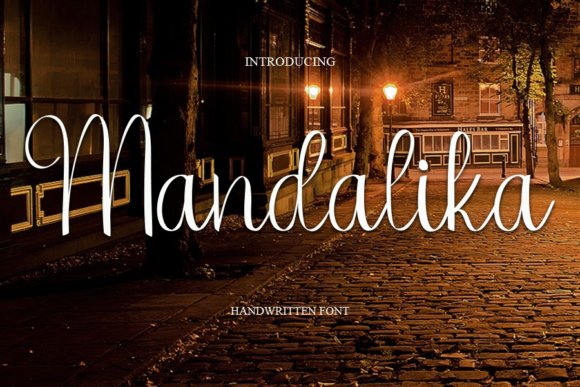
Welcome to the marvelous world of Mandalika Font, a captivating script font that dances across your designs with an enchanting grace. This delightful handwritten font possesses an allure that transforms ordinary words into captivating art. With its sweeping curves and playful flourishes, Mandalika Font adds a joyful and romantic touch to every project, leaving an indelible mark that echoes timeless elegance.
As a script font, Mandalika Font dances across your designs with an energy that is both lighthearted and sophisticated. It brings a touch of whimsy and playfulness to logos and branding concepts, making them stand out from the crowd. Imagine your logo, rendered in Mandalika Font, dancing gracefully across business cards, website headers, and product packaging, capturing attention and leaving a memorable impression.
For wedding invitations and greeting cards, Mandalika Font is a dream come true. Its delicate swirls and flowing lines evoke a sense of romance and joy, perfectly encapsulating the emotions of your special day or heartfelt message. The font's inherent elegance adds a timeless charm to your wedding stationery, making it a cherished keepsake that will be treasured for years to come.
Fashion and lookbook designs take on a new life when adorned with Mandalika Font. Its flowing curves and stylish flourishes bring a touch of sophistication and allure to your designs, making them captivating and visually appealing. Imagine your fashion catalog or lookbook, infused with the essence of Mandalika Font, captivating readers with its timeless beauty and inspiring them to embrace their own unique style.
But Mandalika Font is not just limited to these specific applications. Its versatility shines in marketing promotions, social media graphics, and any other design project where you seek to make a statement. Whether you're crafting a captivating flyer, designing a stunning poster, or creating eye-catching social media content, Mandalika Font is your perfect companion, adding a touch of class and creativity that resonates with your audience.
So, if you seek a font that captivates, inspires, and leaves a lasting impression, look no further than Mandalika Font. Its enchanting beauty and versatility make it a must-have for designers of all skill levels, allowing you to create designs that speak volumes and leave a lasting legacy of elegance and charm. Embrace the magic of Mandalika Font today and embark on a creative journey that knows no bounds.